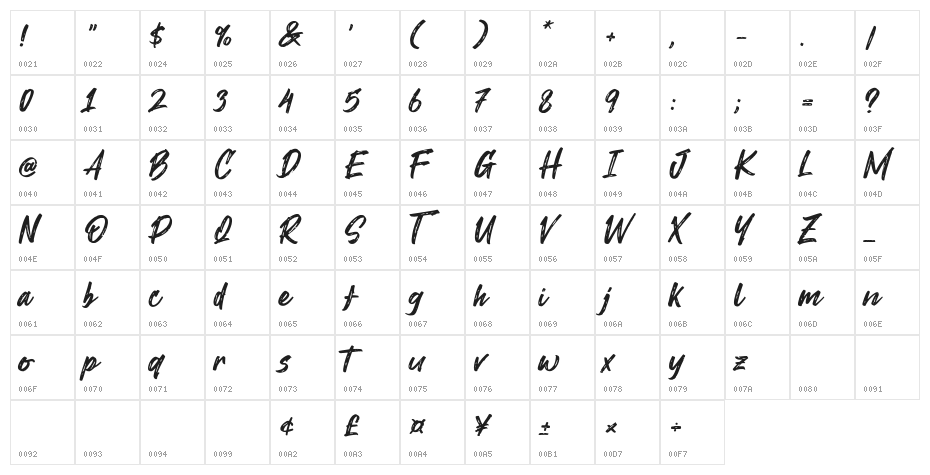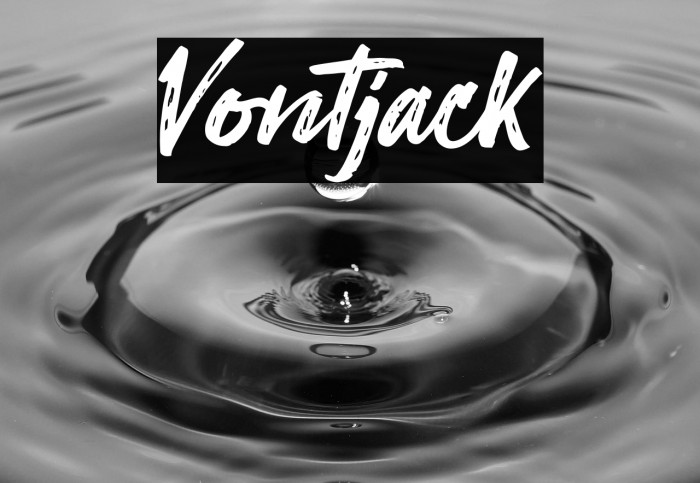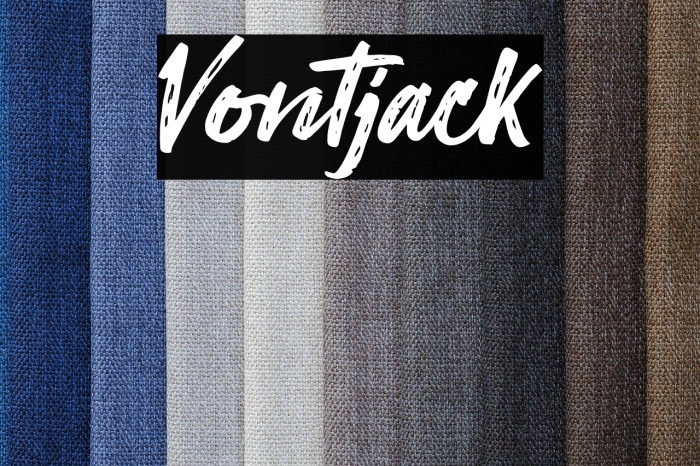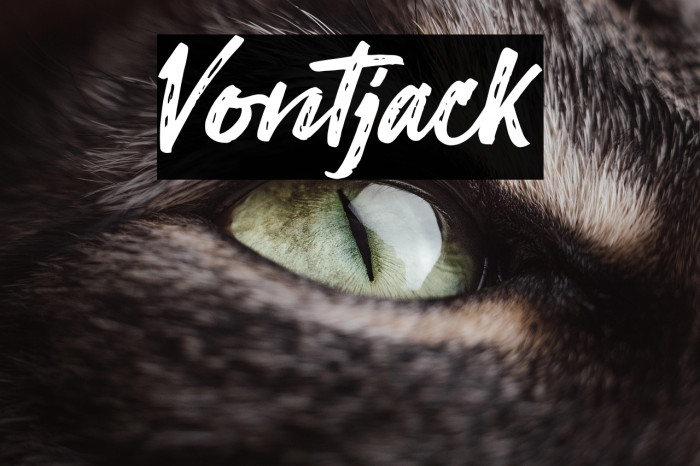
Vontjack Font
Vontjack Description
This font exhibits a bold and dynamic handwritten style, characterized by its brush-like strokes and energetic flow. The letters are slightly slanted, adding a sense of movement and spontaneity. The uppercase and lowercase letters maintain a consistent style, with a playful yet legible appearance. The numbers and special characters follow the same aesthetic, ensuring uniformity across all glyphs. The font's texture gives it a raw, authentic feel, making it suitable for projects that require a personal touch.
| Proposed Projects | Ideal for branding, posters, invitations, and any creative project that seeks a personal, artistic touch. |